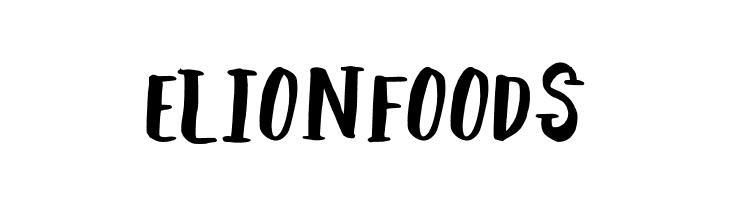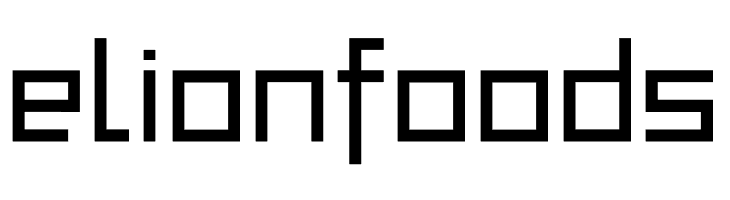
A futuristic, geometric font with bold, rounded letterforms and tight spacing.
A flowing, elegant script font with bold, cursive strokes.
A bold, decorative blackletter style font with sharp, angular lines.
A bold, distressed font with a rugged, handcrafted appearance.
A dynamic and elegant script font with high contrast and flowing strokes.
A lively and flowing script font with elegant curves and a playful touch.
A geometric, monospaced font with a modern, industrial aesthetic.
A modern, monospaced italic font with a technical and futuristic style.
A bold, horror-themed font with a dripping effect and dramatic style.
A bold, playful font with a hand-drawn, cartoonish style.
A graceful and artistic script font with flowing, cursive characters.
A dynamic and elegant script font with flowing, cursive letterforms.
A whimsical, hand-drawn style font with playful and dynamic characters.
Tall, playful handwritten sans-serif with rounded forms.
A bold, handwritten font with a playful and casual style.
A playful, bold, and retro font with thick, rounded strokes.
A casual, handwritten font with a dynamic and flowing style.
A bold, playful font with rounded edges and a hand-drawn feel.
A playful, bold font with a hand-drawn, rounded style.
An elegant, cursive script font with flowing, ornate characters.
A rugged, hand-drawn font with a playful and organic feel.
A playful, clip-constructed font with a geometric and industrial style.
A playful, runic-inspired font with bold, geometric characters.